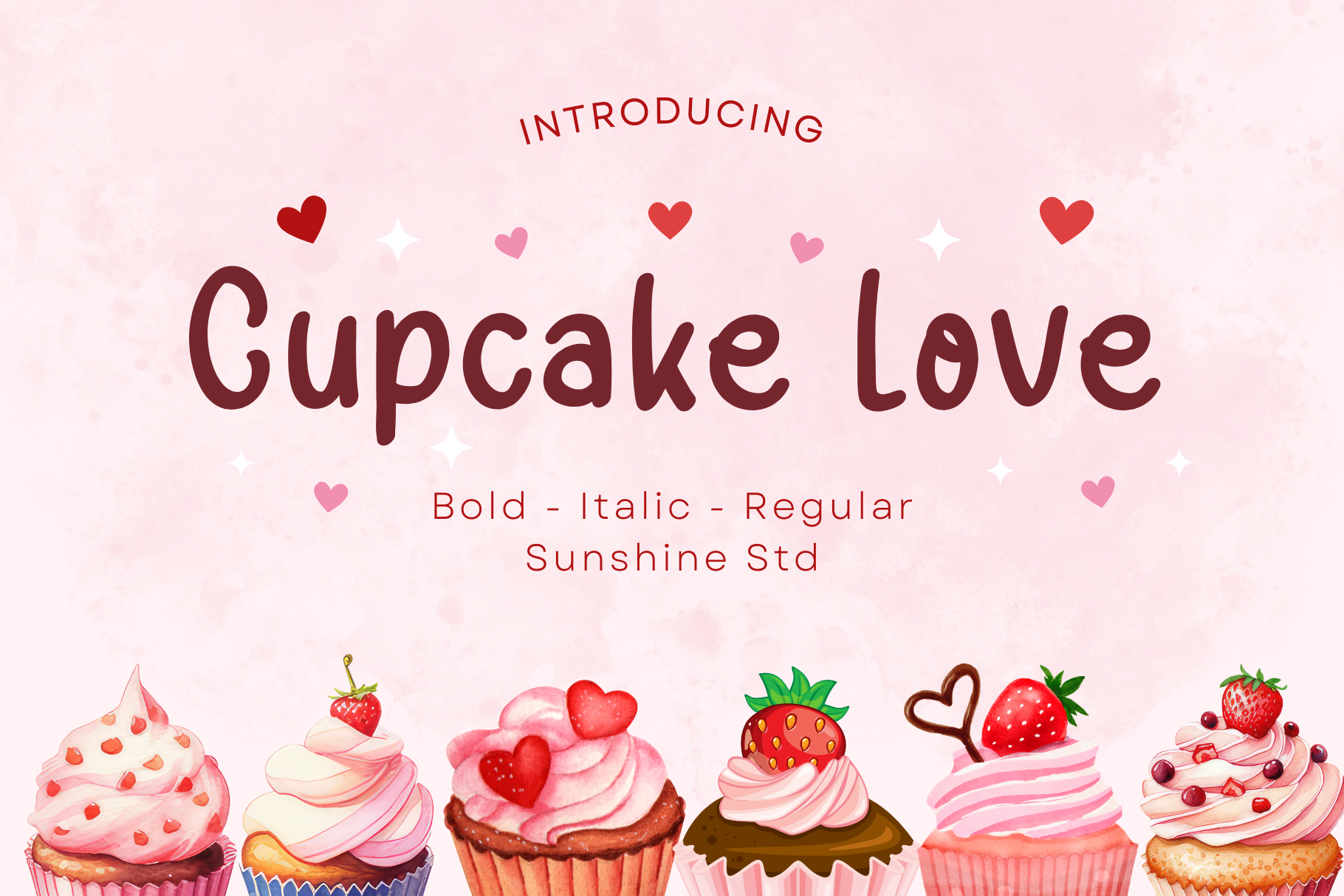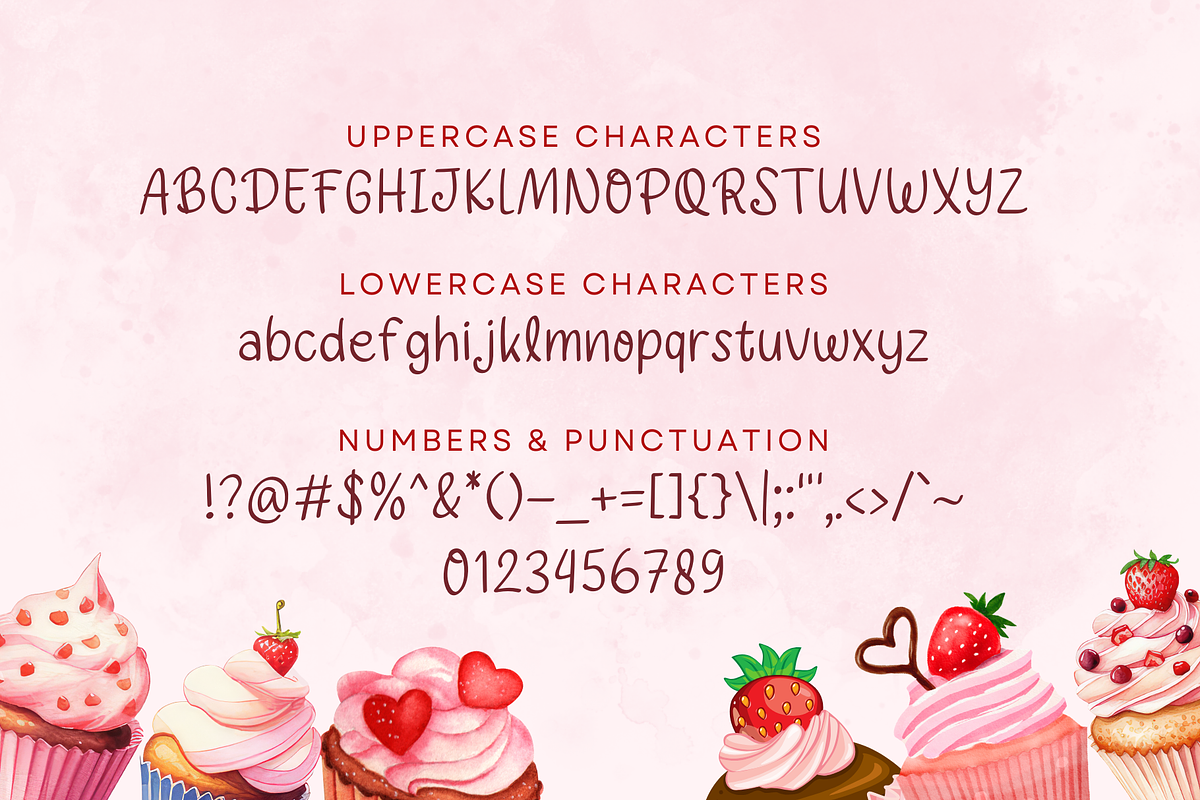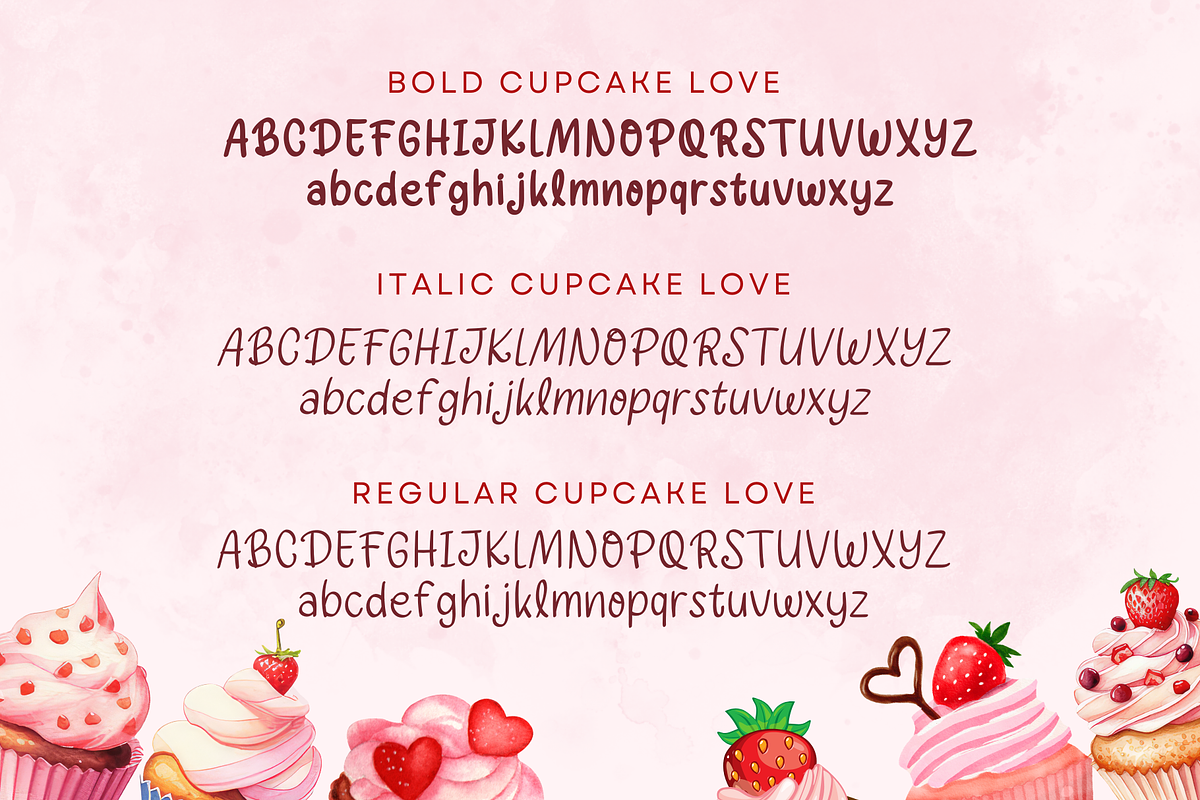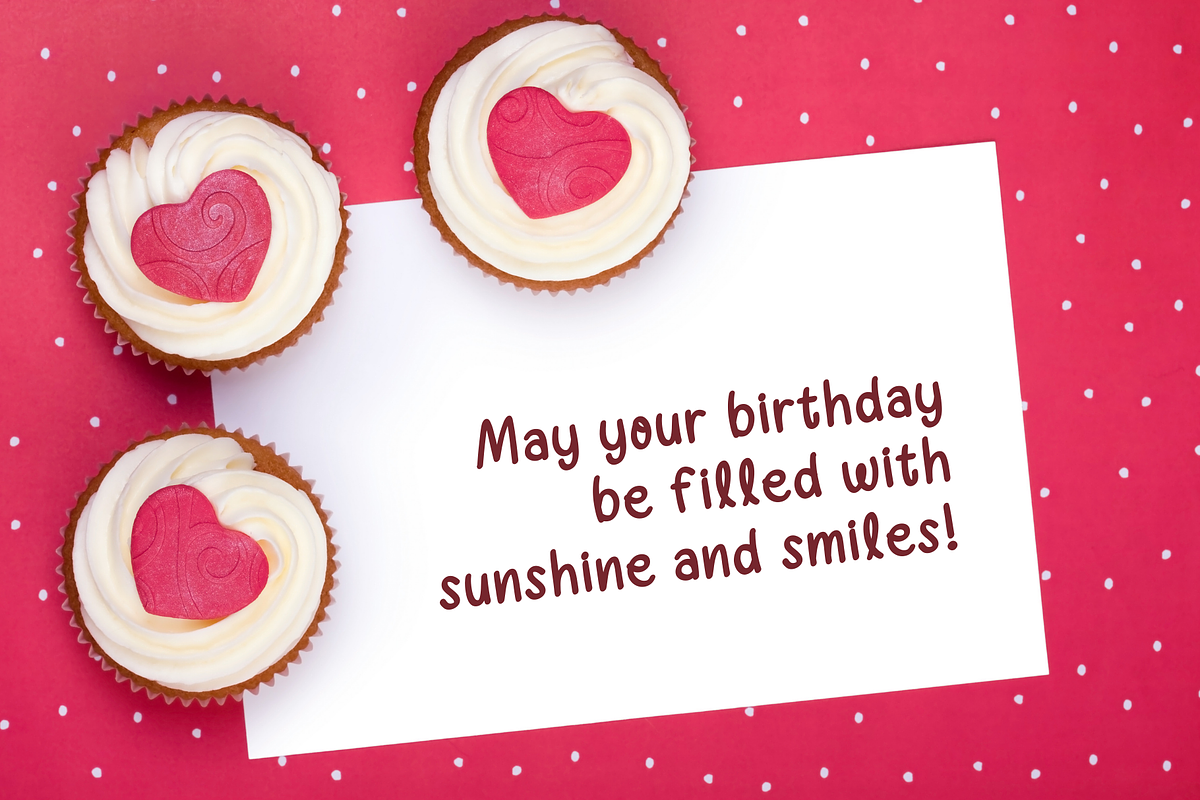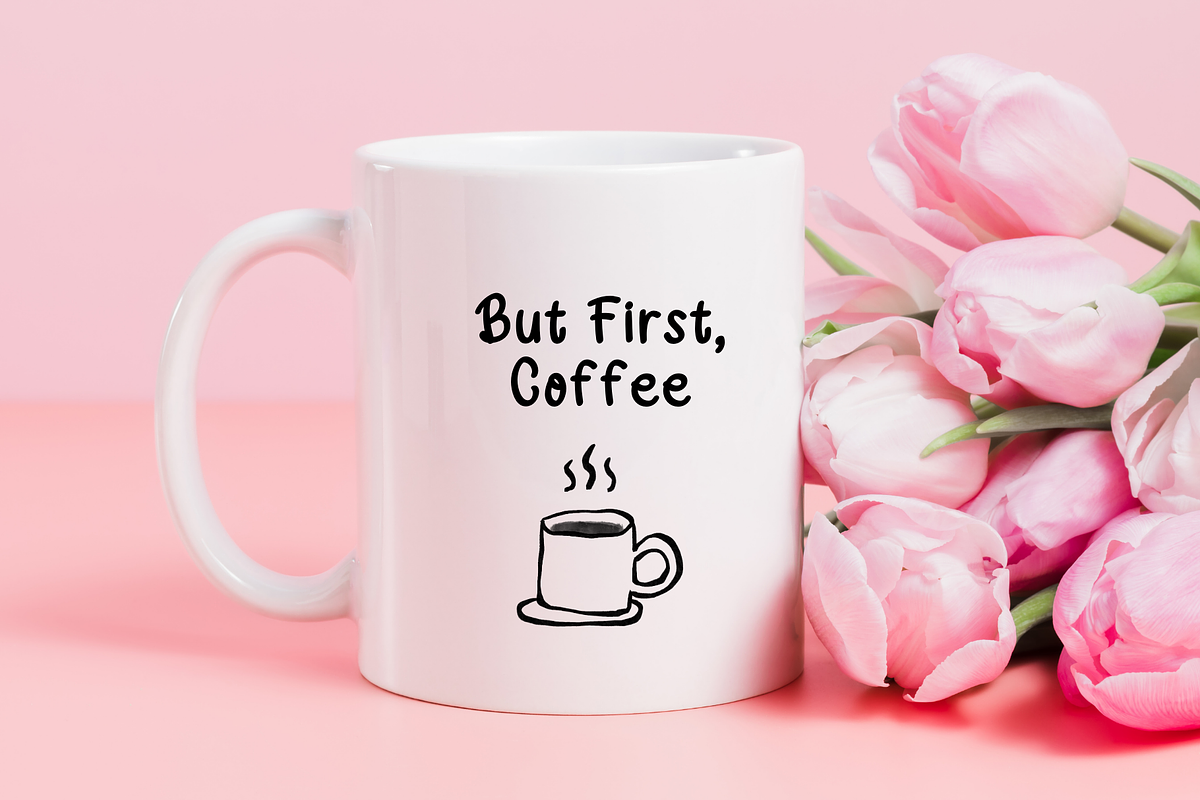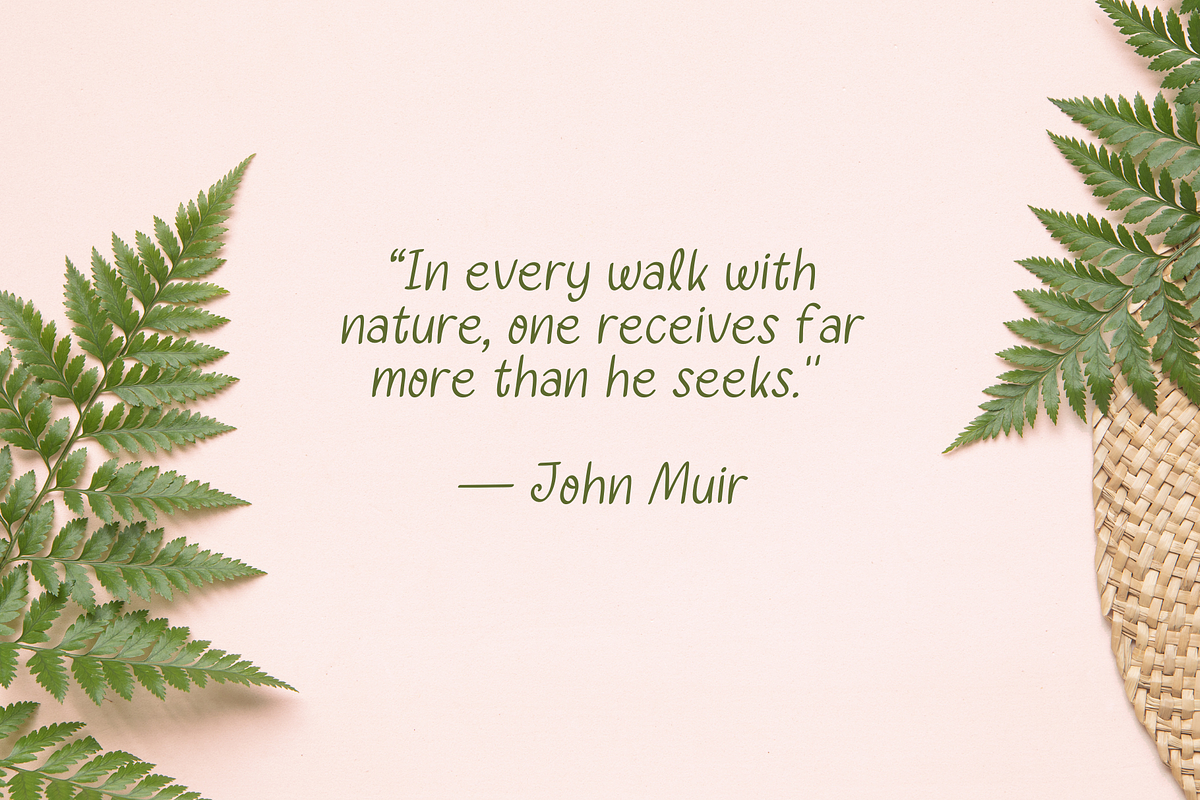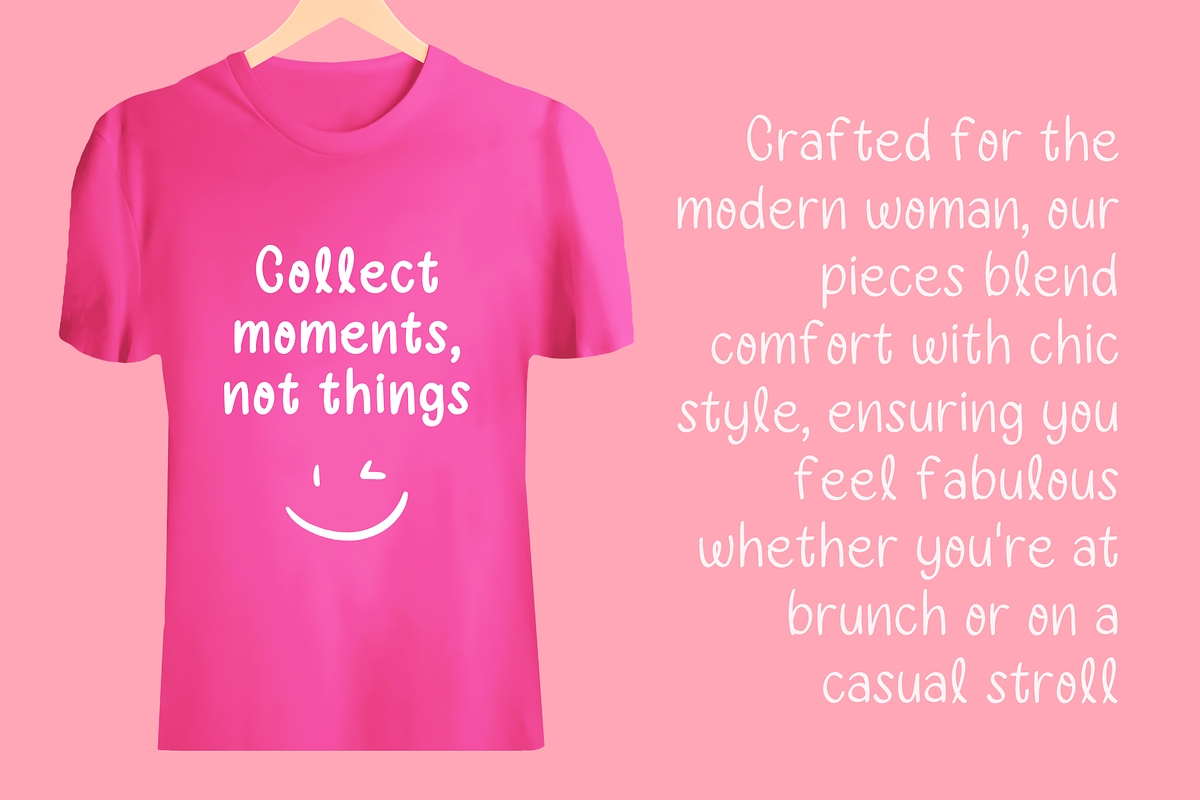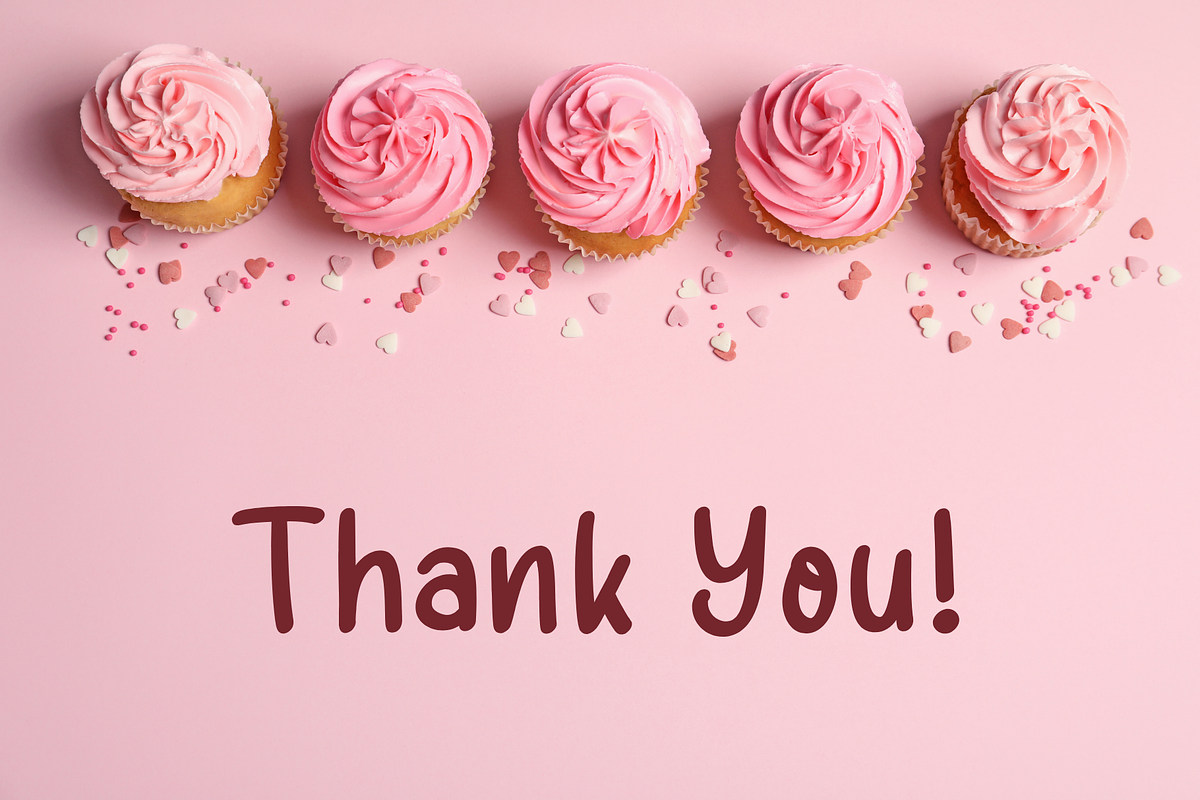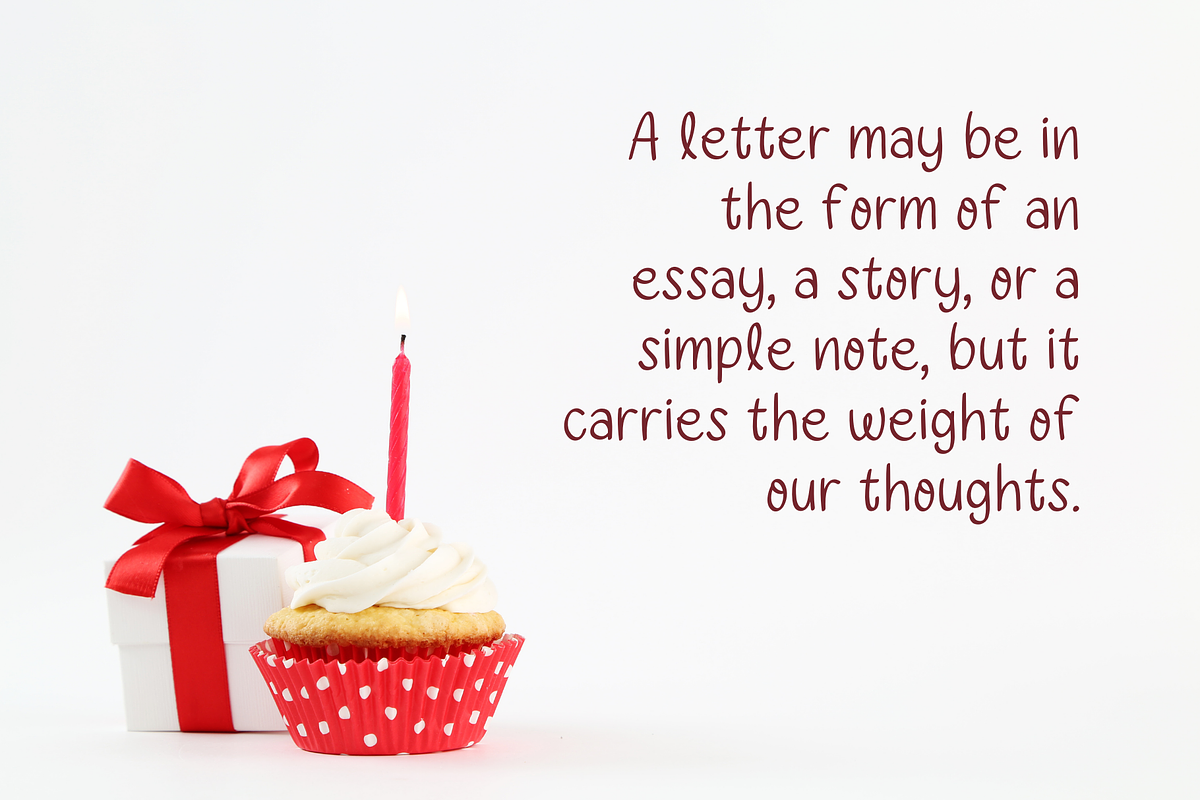
Cupcake Love Handwriting Font
Introducing Cupcake Love, the delightful handwriting font that brings a sprinkle of sweetness and charm to all your designs! Inspired by the joy of baking and the whimsical nature of childhood treats, Cupcake Love is perfect for those looking to add a playful and inviting touch to their projects.
About the Features
- Standart alphabet (lowercase, uppercase and number)